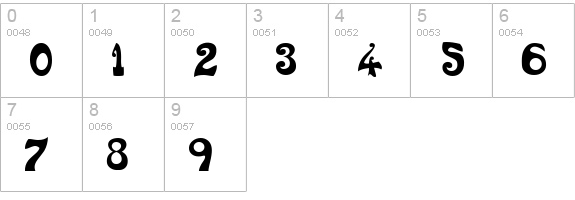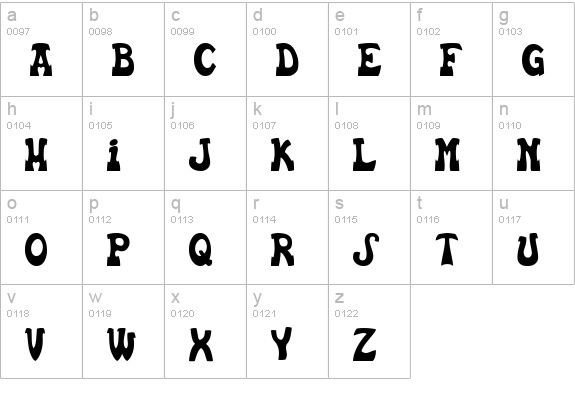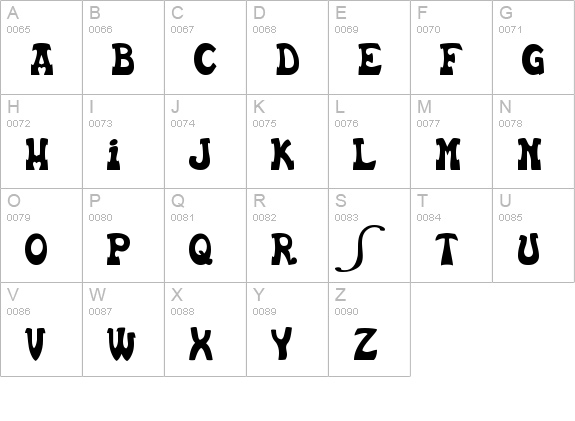
Euskal Font Normal is the standard, neutral variant in the Euskal typeface family \xE2\x80\x94 well suited to general body text, paragraphs, and standard typographic work.
Euskal Font Normal is a versatile and modern font that combines elegance with readability. With its clean lines and balanced proportions, this typeface is perfect for a wide range of design projects, from branding to editorial work. The classic yet contemporary style of Euskal Font Normal makes it suitable for both digital and print applications. This font is available for free download at FontsMarket.com, where you can access a wide selection of high-quality fonts for your creative endeavors. Whether you're designing a website, creating marketing materials, or working on a personal project, Euskal Font Normal is a reliable choice that will add a touch of sophistication to your work. Download it today and elevate your designs with this stylish and versatile typeface.